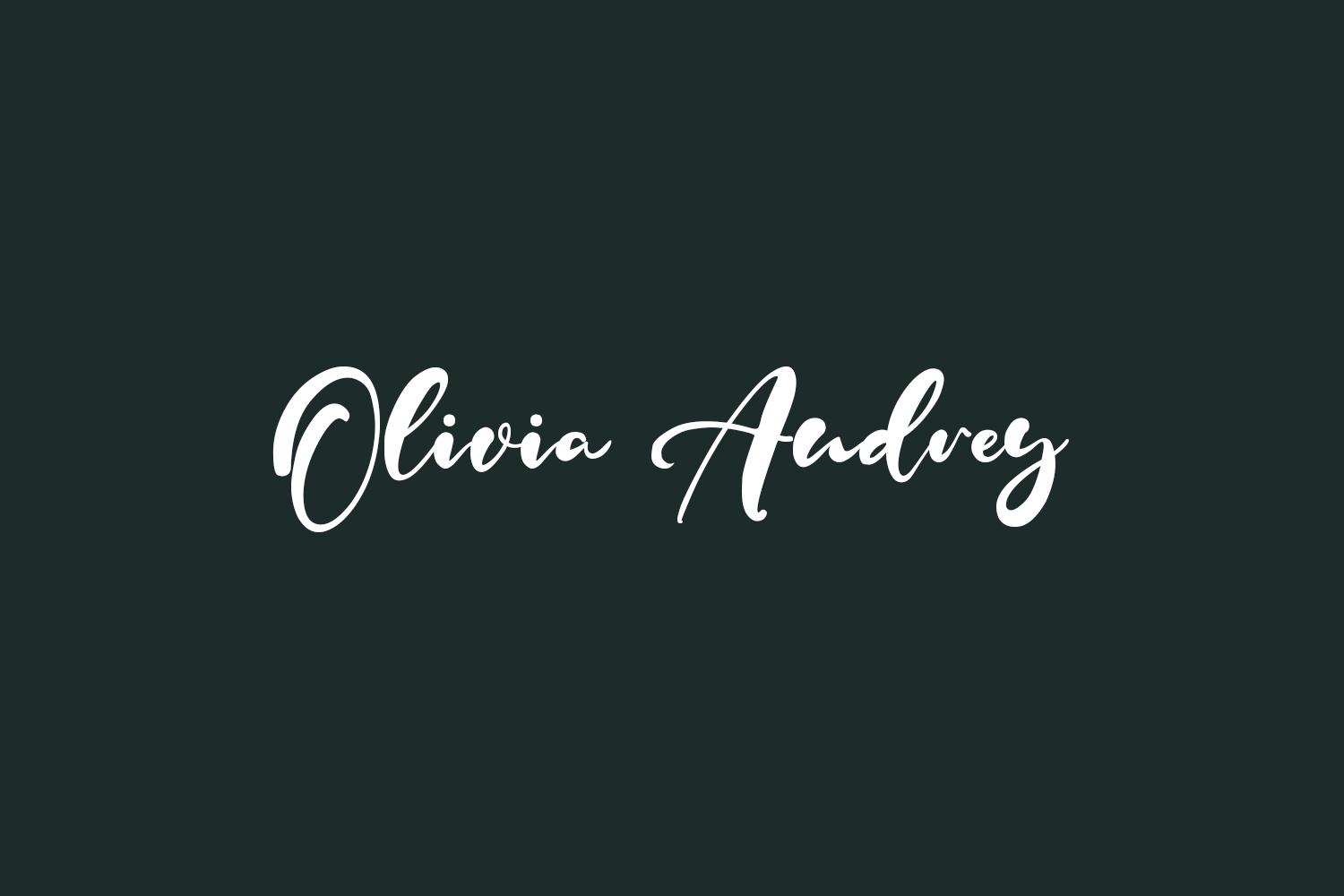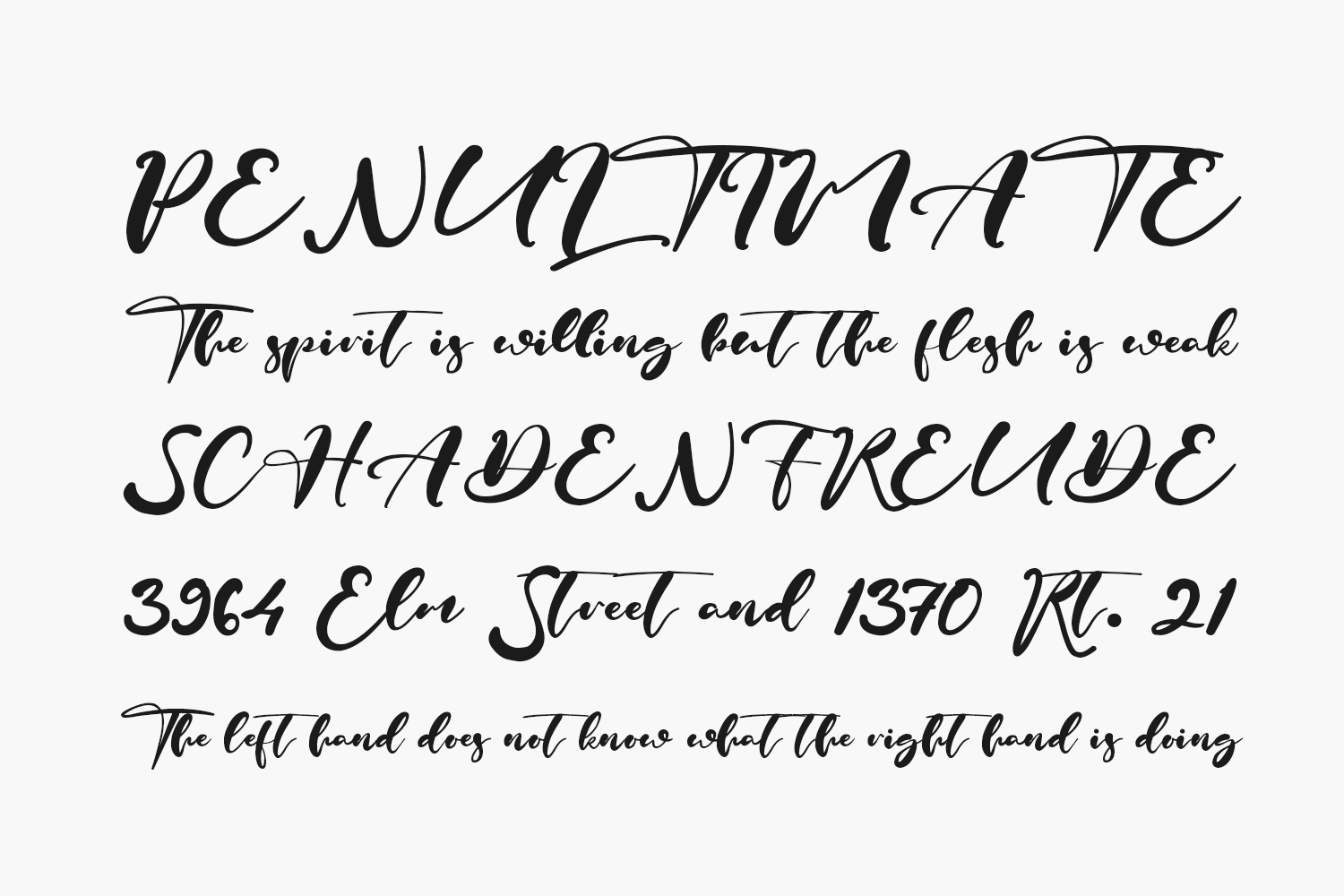
Olivia Audrey Free Font is a modern and playful handwritten script font. It is perfect for any branding project such as logos, t-shirt printing, creative products, and more. It will look extraordinary in a variety of contexts. Olivia Audrey Free Font was designed by Kong Font and is free for personal use only. Please purchase the full version for commercial use.